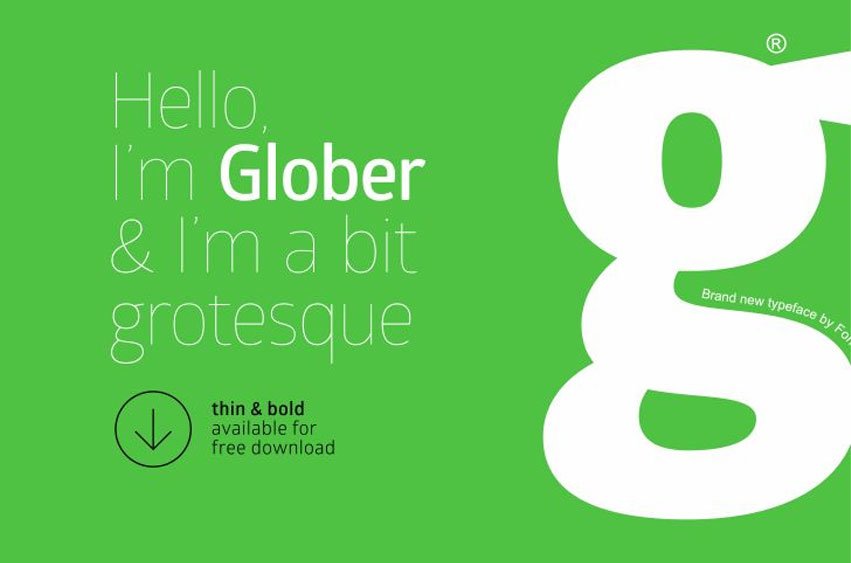
Glober Font family was awarded with the gold medal at Modern Cyrillic 2014 and now is back to Fontfabric with its upgraded and extended version. This type family comprises 18 fonts – 9 straight and 9 italic fonts – and like other standard sans-serif fonts, it has clear text, fine lines, good kerning, and perfect web typography.
The distinguishable style of the Glober Font Family is emphasized by the rounded geometry and humanistic cutouts, which give a general touch of warmth.